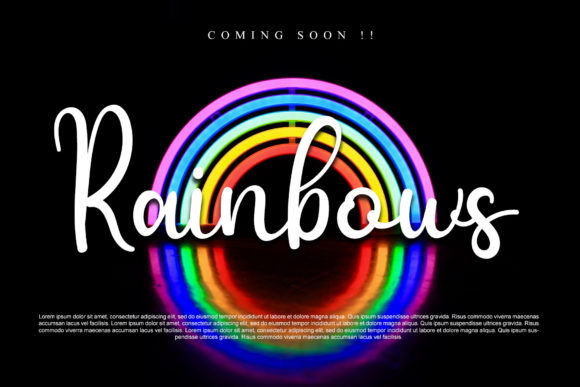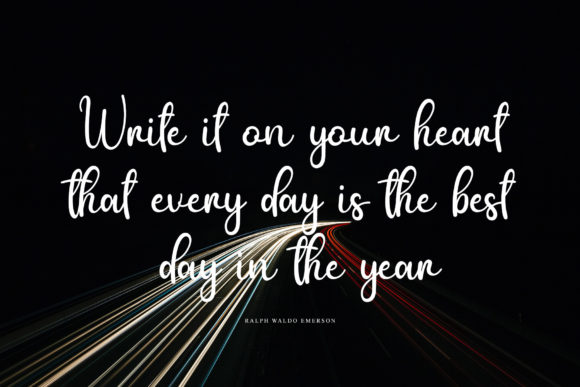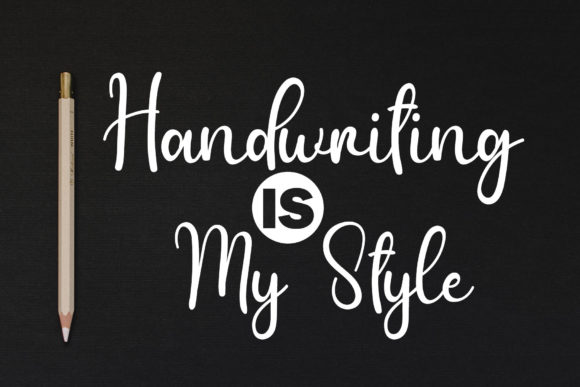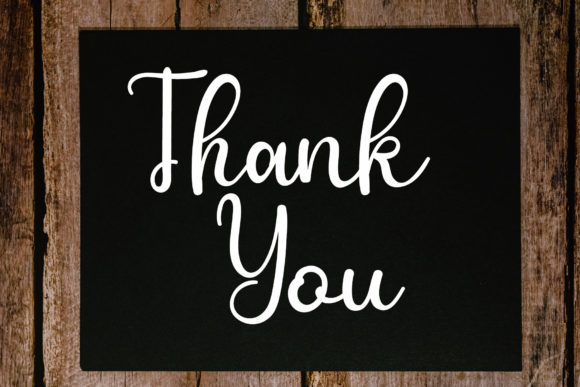
Introduction to Pastel Story Font Font
Fonts play a crucial role in design, and the Pastel Story Font font is a typeface that brings both character and versatility to any project. Whether you’re working on a branding project, a website, or a print design, the Pastel Story Font font offers a unique style that can elevate your work.
Pastel Story is a cute and delicate, lettered handwritten font that you can use for all chalkboard quotes or teaching material.
Its authentic look will add a personal and realistic feel to your designs This font is PUA encoded which means you can access all of the glyphs and swashes with ease.
The Pastel Story Font font is more than just a typeface – it’s a design tool that helps you communicate your message with style and clarity. Its unique character set and versatile design make it suitable for a wide range of applications, from elegant invitations to bold headlines.
With its carefully crafted letterforms and balanced proportions, the Pastel Story Font font ensures readability and visual appeal across all mediums.
What makes Pastel Story Font font special?
The Pastel Story Font font stands out with its unique design, exceptional readability, and versatility across various design applications.